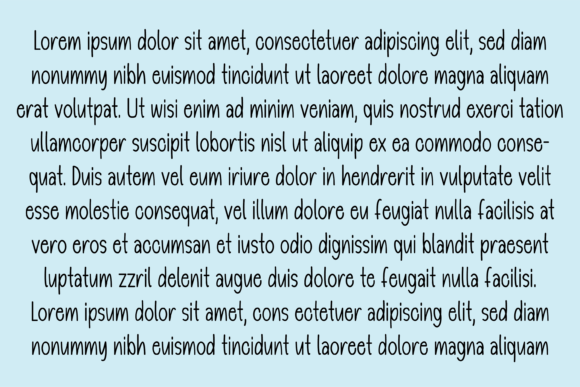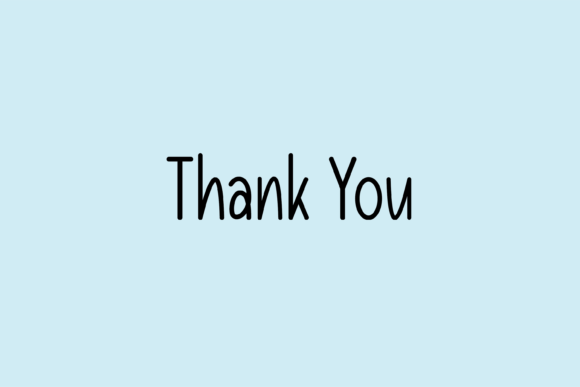
Introduction to Paine Font
As designers, we’ve all been there – staring at a blank canvas, searching for the perfect font to bring our creative vision to life. Sometimes, it’s the simplest fonts that make the biggest impact. That’s where Paine Font comes in – a charming, handwritten typeface that’s sure to add a touch of whimsy to your designs. With its friendly and approachable feel, Paine Font is the perfect addition to any creative project.
Whether you’re working on a high-quality magazine spread, a free download for a client, or a wedding invitation that requires a special touch, Paine Font is a valuable design resource that’s sure to deliver. Its versatility and unique character make it an excellent choice for logos, advertisements, and quotes, and its transparent background allows for seamless integration into any design.
Key Features of Paine Font
- High-quality font suitable for creative projects, offering a unique and elegant design.
- Comes with a transparent background, allowing for flexibility in design composition.
- Font size: 256 glyphs, providing a comprehensive set of characters for creative expression.
- Resolution: Optimized for high-resolution displays, ensuring clear and crisp typography at various zoom levels.
- Unique characteristics include a modern and minimalist aesthetic, making it suitable for a wide range of design applications.
Honest Review: Paine Font
I recently stumbled upon the Paine Font while searching for a high-quality, free download for my creative project. I was impressed by the sheer diversity of its styles, from elegant script to bold sans-serif.
- Unique and versatile designs that cater to a wide range of creative projects
- High-quality fonts that are suitable for print and digital use
- Transparent background, making it easy to integrate with any design resource
One of the standout features of the Paine Font is its extensive library of styles, which includes bold, italic, and script variations. This makes it an excellent choice for designers looking to add some flair to their work.
- Some users may find the font’s style to be too eclectic for certain design projects
Overall, I’m impressed by the Paine Font’s versatility and high quality. While it may not be perfect for every design project, it’s an excellent choice for those looking for a unique and free download.
Paine Font
What is Paine Font?
Paine Font is a high-quality, free download design resource perfect for creative projects. It features a transparent background, making it ideal for use in various design applications.
Tips for Getting the Most Out of Paine Font
Experiment with different font sizes, colors, and combinations to create unique and eye-catching designs. Use the transparent background to create a sense of depth and dimensionality in your projects.
Common Use Cases for Paine Font
Paine Font is perfect for use in creative projects, including social media graphics, presentations, documents, and more. Its high-quality design and transparent background make it a versatile and useful design resource.